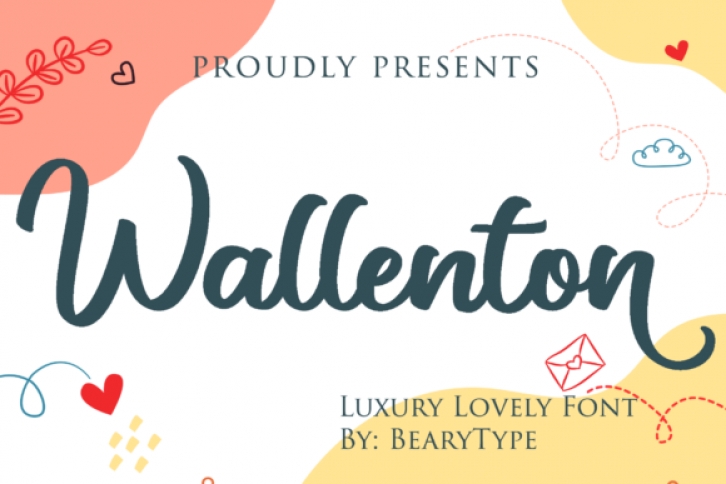
Wallenton is a fun and friendly handwritten font. It’s playfulness make it great for creative projects, be it inspirational wall posters or for communicating your brand.